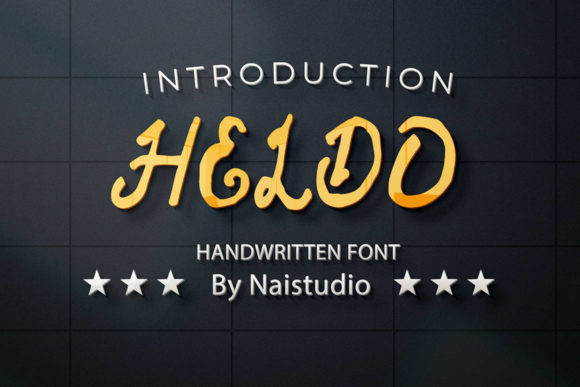
Immerse yourself in the world of Heldo Font, an extraordinary handwritten font crafted to captivate your senses and elevate your designs. Prepare to be awestruck by its exquisite strokes, each reminiscent of a skilled calligrapher's touch, yet infused with a modern edge that breathes life into your creations. Heldo is a symphony of elegance and innovation, a font that seamlessly blends tradition with contemporary flair.
Journey through the limitless possibilities that Heldo Font offers. Its beautifully crafted characters dance across the page, carrying your words with grace and sophistication. Whether you're a seasoned designer or just starting your creative journey, Heldo Font is your perfect companion. Unleash your imagination and watch as your projects transform before your eyes, imbued with a touch of undeniable charm and sophistication.
With Heldo Font, the ordinary becomes extraordinary. Elevate your business plans, marketing campaigns, social media posts, and personal projects to new heights. Its captivating aura commands attention, drawing your audience into a world of captivating visuals. Let Heldo Font become your secret weapon to leave a lasting impression, to ignite conversations, and to make a statement that resonates with your clientele.
Experience the beauty of Heldo Font today and discover a new realm of creativity. its meticulously crafted details will leave you breathless, while its versatility ensures that it seamlessly adapts to your diverse projects. From delicate wedding invitations to bold logos, from handwritten notes to captivating online content, Heldo Font is your trusted partner, guiding you toward design excellence.